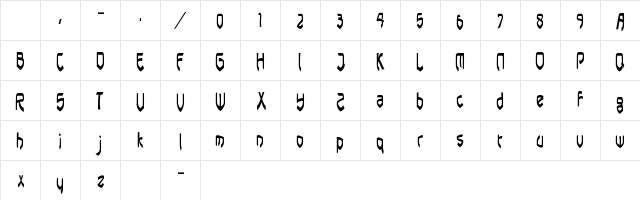
Complete pasundan Regular glyph index. Displaying only characters natively supported by pasundan Regular font.
pasundan is a composed and adaptable typeface that performs quietly and consistently across a wide range of design contexts.